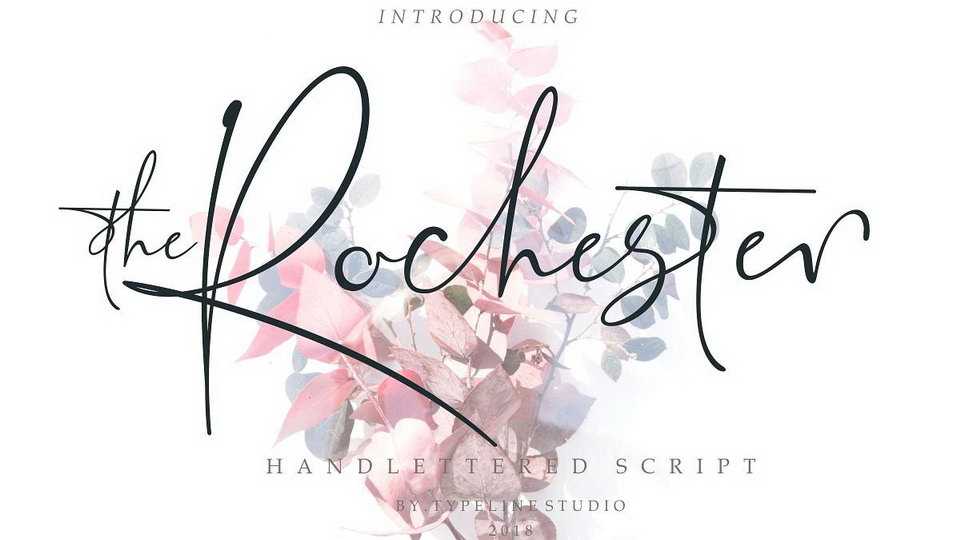
Download The Rochester – a classy signature inspired font. It’s made with a modern taste but with real hand-lettering nuances. The Rochester also includes full set of uppercase and lowercase letters, 40+ ligatures, multilingual symbols, numerals and punctuation.
Designer: Typeline Studio